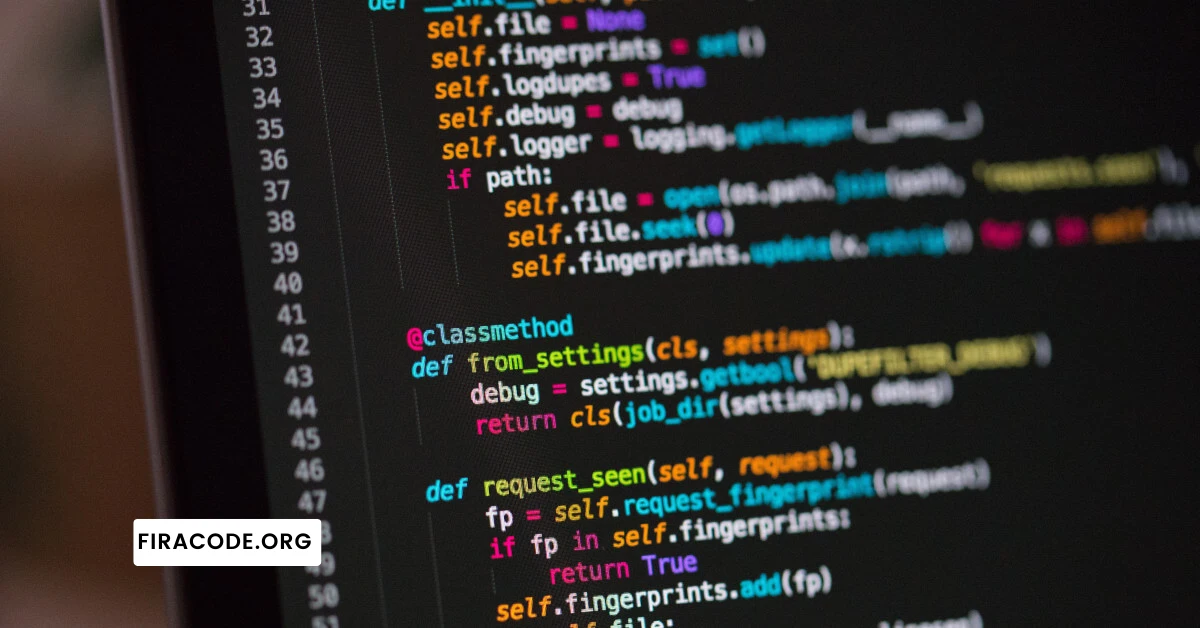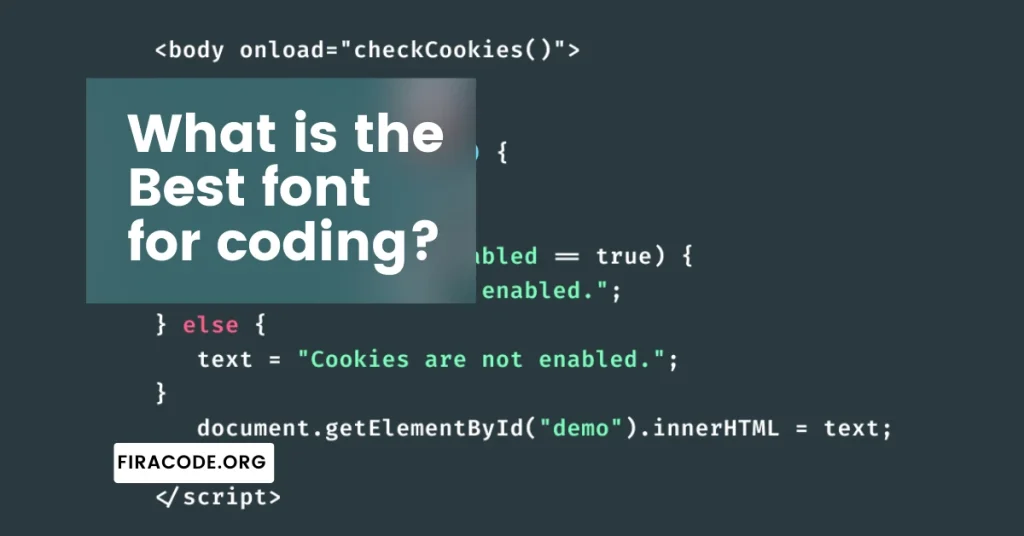
What is the Best Font for Coding?
Introduction
In the vast world of coding, where lines of text come to life as functional and visually appealing software, the choice of font might seem like a trivial matter.  However, seasoned developers understand the impact a well-chosen font can have on readability, productivity, and overall coding experience.
In this article, we delve into the intricacies of selecting the best font for coding, exploring various factors that can significantly influence a programmer’s workflow.
Importance of Typography in Coding
Before we dive into specific font recommendations, let’s highlight the significance of typography in coding. Good typography enhances code readability, reduces eye strain, and contributes to a more focused and efficient coding process.
Importance of Typography in Coding
1: Criteria for Selecting the Best Font for Coding
Choosing the right font for coding can make a substantial difference in the way developers perceive and interact with their code.
• Readability
One of the primary considerations when choosing a coding font is readability. The font should have clear distinctions between characters, ensuring that developers can quickly identify and comprehend code elements. Fonts with distinguishable characters, such as Courier Prime or FiraCode, often prove beneficial in this regard.
• Style and Aesthetics
While functionality is key, the aesthetic appeal of a font should not be overlooked. A balanced blend of style and functionality can contribute to a more enjoyable coding experience. Fonts like JetBrains Mono and Consolas strike a harmonious balance between style and readability.
• Monospacing
Coding fonts are generally monospaced, meaning each character occupies the same horizontal space. This uniformity aids in aligning code vertically, enhancing the overall structure and organization. Popular monospaced fonts include Inconsolata and Monaco.
2: Top Fonts for Coding
Now, let’s explore some of the topfonts that consistently receive acclaim within the coding community.
• Fira Code
FiraCode is renowned for its ligature support, offering a unique visual representation of common code constructs. This not only adds a touch of elegance but also aids in quickly identifying code patterns.
• Roboto Mono
Known for its clean and modern design, Roboto Mono provides excellent readability even at smaller font sizes. Its versatility makes it a popular choice across different coding environments.
• Consolas
A classic among coding fonts, Consolas is a Microsoft staple known for its clear characters and crisp rendering. Its widespread use and availability across various platforms make it a reliable choice.
• Operator Mono
For those who appreciate a more sophisticated look, Operator Mono stands out with its distinctive curves and stylish design. However, it’s worth noting that this font comes with a premium price tag.
3: Considering Developer Preferences
It’s essential to recognize that the choice of the best coding font can be subjective. Developers often have personal preferences based on their coding habits, visual comfort, and aesthetic inclinations.
Some may prefer a more minimalist font, while others might opt for fonts with additional features like ligatures.
Conclusion
In conclusion, the best font for coding ultimately depends on individual preferences and specific project requirements. Whether you lean towards the classic appeal of Consolas or embrace the modernity of Fira Code, the key is to prioritize readability and choose a font that aligns with your coding style.
Experiment with different options, consider feedback from the coding community, and find the font that enhances your coding experience.
Happy coding!
FAQS (Frequently Asked Questions)
Q#1: What is the best font for coding, and why does it matter?
The choice of the best font for coding is subjective and depends on personal preference, but a widely recommended and popular choice is “Monospaced” or “Fixed-width” fonts. Examples include Consolas, Menlo, and Fira Code.
Monospaced fonts ensure that each character occupies the same horizontal space, aiding in aligning code and making it more readable.
Consistency in character width helps maintain a clear visual structure in code, which is crucial for developers who spend long hours working on code. Additionally, certain fonts like Fira Code offer ligatures, enhancing the readability of common programming symbols.
Q#2: Are there specific fonts that are commonly preferred by developers for coding?
Yes, several fonts are commonly preferred by developers for coding due to their readability and aesthetics. Some of the popular choices include:
1. Consolas: Known for its clear and crisp characters, Consolas is a monospaced font designed specifically for programming.
2. Menlo: A monospaced font that comes pre-installed on macOS, Menlo is favored for its clarity and ease of reading.
3. Fira Code: This font is an extension of the Fira Mono font family and includes programming ligatures, which are special characters designed to improve code readability. You can install the firacode font and use it.
4. Inconsolata: Another monospaced font, Inconsolata, is praised for its clean design and legibility.
5. Monaco: Commonly used on macOS, Monaco is a clear and easy-to-read font for coding.
Ultimately, the best font depends on personal preference, and developers may try different ones to find the one that suits them best.
Q#3: What factors should be considered when choosing a font for coding?
When choosing a font for coding, several factors should be considered:
• Readability: The font should be easy to read, especially during long coding sessions. Clear and distinguishable characters are crucial.
• Monospacing: Opt for a monospaced or fixed-width font to maintain consistent character width, which helps align code and improves readability.
• Ligatures: Some developers prefer fonts with ligatures, special character combinations that enhance the appearance of common programming symbols, making code more visually appealing.
• Cross-platform availability: Choose a font that is available and looks consistent across different operating systems, ensuring a consistent coding experience.
• Customization: Look for fonts that allow customization, such as adjusting font size and line spacing, to cater to individual preferences.
Q#4: Does the choice of font impact productivity in coding?
While the choice of font alone may not directly impact productivity, a well-chosen font can contribute to a more comfortable and efficient coding experience. A font that is easy to read, has clear characters, and maintains consistent spacing can reduce eye strain and make it easier to spot errors or inconsistencies in code.
Additionally, a font with ligatures or other visual enhancements may contribute to a more aesthetically pleasing coding environment, which can indirectly enhance focus and productivity during long coding sessions.
Q#5: Can I use different fonts for different programming languages or tasks?
Yes, you can use different fonts for different programming languages or tasks based on personal preference. Some developers prefer a specific font for coding and another for documentation or comments.
For example, a developer may choose a font with ligatures for coding to enhance symbol recognition and switch to a more standard font for documentation to improve overall readability.
Experimenting with different fonts for various tasks can help find the optimal combination that suits individual preferences and enhances the coding experience.